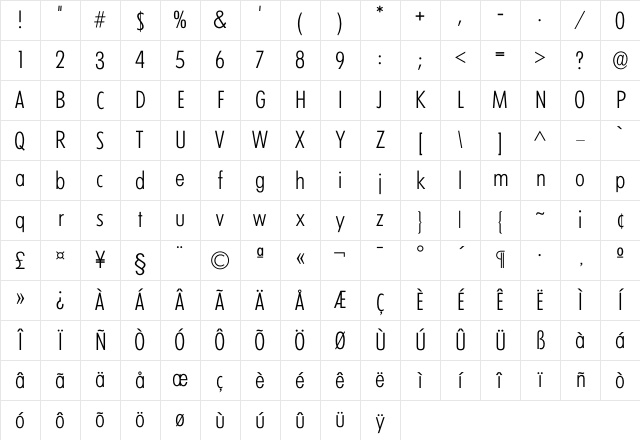
Climerick Light
Climerick Family
Climerick Light
Design Context for Climerick
Climerick is a composed and adaptable typeface that performs quietly and consistently across a wide range of design contexts. Its slender proportions lend an understated elegance to any composition.